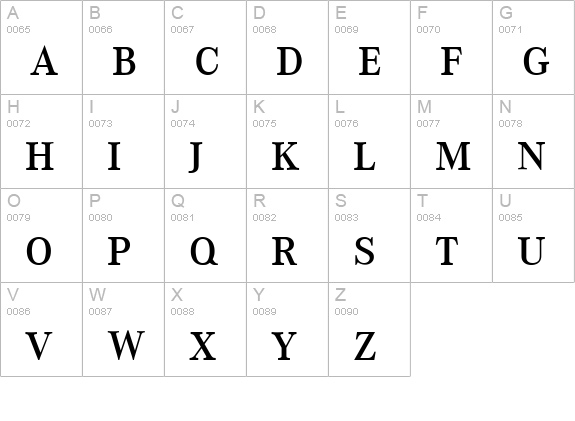
Corporate A Medium Font Details
Corporate A Medium is a balanced, medium-weight variant in the Corporate typeface family \xE2\x80\x94 well suited to sub-headlines, navigation, and balanced editorial work.
Corporate A Medium font is a versatile and modern typeface that is perfect for a wide range of corporate and business designs. Its clean lines and balanced proportions make it highly readable and professional, making it a great choice for presentations, reports, and branding materials. The medium weight strikes the perfect balance between being bold and refined, making it suitable for both headings and body text. What's even better is that Corporate A Medium font is freely available to download at FontsMarket.com. This means you can easily access this high-quality typeface without any cost, allowing you to elevate your design projects without breaking the bank. Don't miss out on this opportunity to enhance your work with a premium font that is both stylish and practical. Download Corporate A Medium font today and take your designs to the next level.